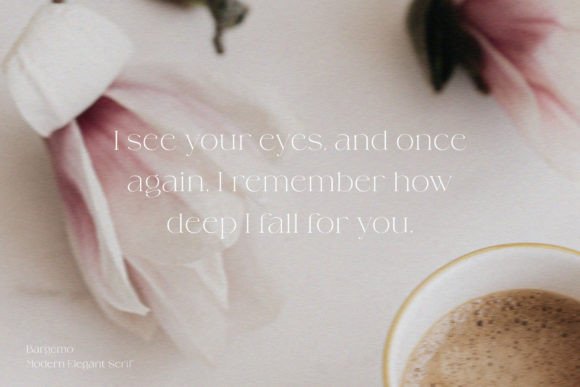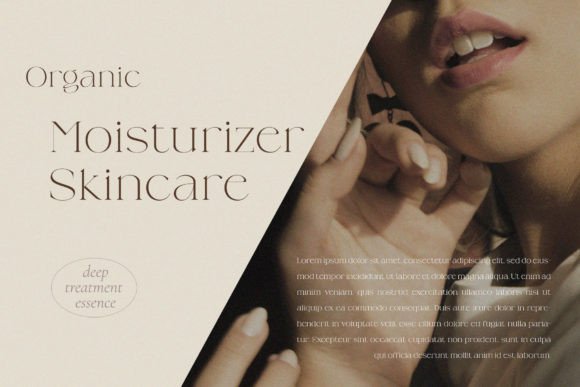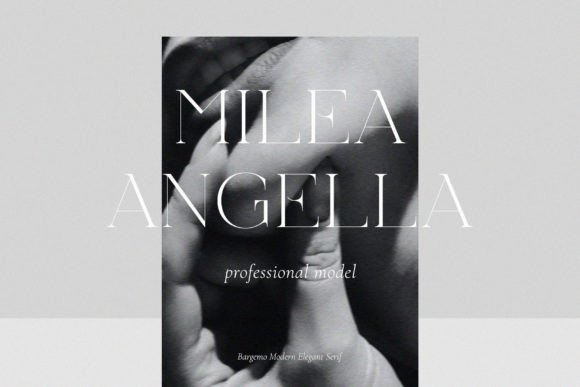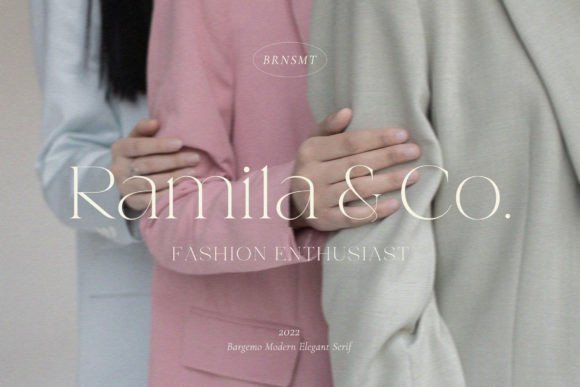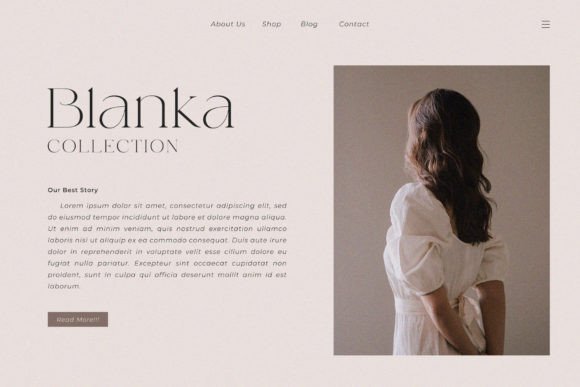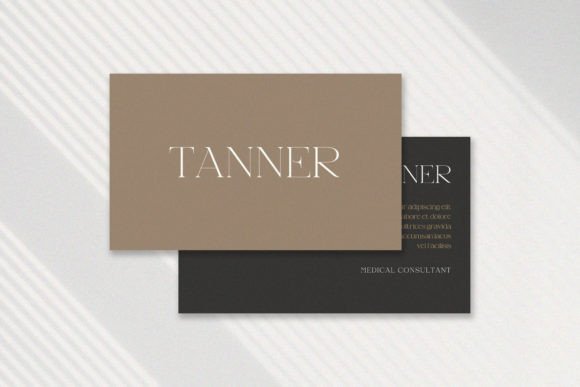
Bargemo Font: Elevate Your Designs with Elegance and Sophistication
In the world of typography, fonts play a crucial role in conveying the tone and personality of a design. For designers and crafters looking to add a touch of refinement and elegance to their creations, Bargemo Font is an excellent choice. This stunning serif font has been making waves in the design community with its incredibly stylish and modern aesthetic, making it an ideal choice for a wide range of projects.
What is Bargemo Font?
Bargemo Font is a carefully crafted serif font that exudes sophistication and poise. Its refined lines, precise curves, and balanced proportions make it a versatile typeface suitable for various design applications. Whether you’re working on a luxury brand logo, a high-end product packaging, or a stylish website, Bargemo Font is sure to elevate your design to new heights.
Key Features of Bargemo Font
• Elegant Serif Design: Bargemo Font boasts a classic serif design with a modern twist, making it perfect for designs that require a touch of sophistication.
• Highly Legible: The font’s clear and precise lines ensure excellent readability, even at smaller font sizes.
• Versatile: Bargemo Font can be used for a wide range of design projects, from logos and branding to packaging, web design, and more.
• Modern Aesthetic: The font’s sleek and modern design makes it an excellent choice for contemporary designs that require a fresh and stylish look.
Who Can Benefit from Bargemo Font?
Bargemo Font is an excellent choice for designers, crafters, and businesses looking to add a touch of elegance and sophistication to their designs. This includes:
• Graphic Designers: Looking for a refined and modern font to elevate their branding, packaging, or advertising designs.
• Web Designers: Seeking a stylish and legible font for their website or blog.
• Crafters: Creating handmade products, such as jewelry, candles, or soap, and looking for a elegant font to label their products.
• Luxury Brands: Aiming to convey a sense of sophistication and high-end quality through their branding and marketing materials.
How to Use Bargemo Font Effectively
To get the most out of Bargemo Font, consider the following tips:
• Pair with contrasting fonts: Combine Bargemo Font with a sans-serif font to create visual interest and add depth to your design.
• Experiment with font sizes: Use Bargemo Font in various font sizes to create a clear visual hierarchy and emphasize important information.
• Pay attention to line spacing: Ensure adequate line spacing to maintain readability and prevent the text from appearing cluttered.
Bargemo Font is a stunning serif font that offers a unique blend of elegance, sophistication, and modernity. With its refined lines, precise curves, and balanced proportions, this font is sure to elevate any design project. Whether you’re a designer, crafter, or business owner, Bargemo Font is an excellent choice for adding a touch of refinement and style to your creations.